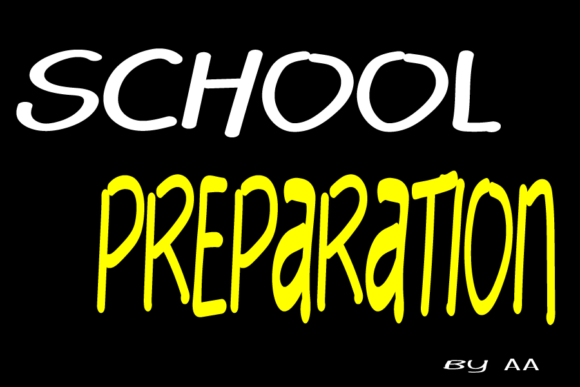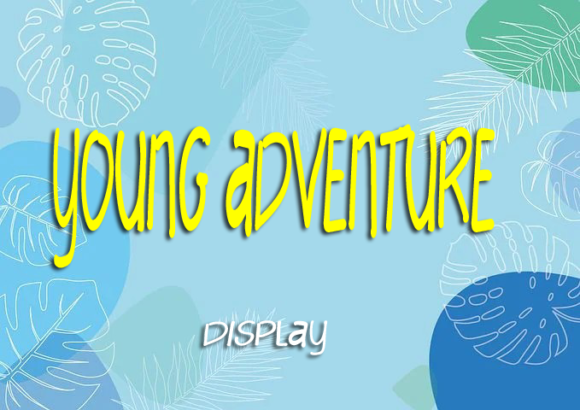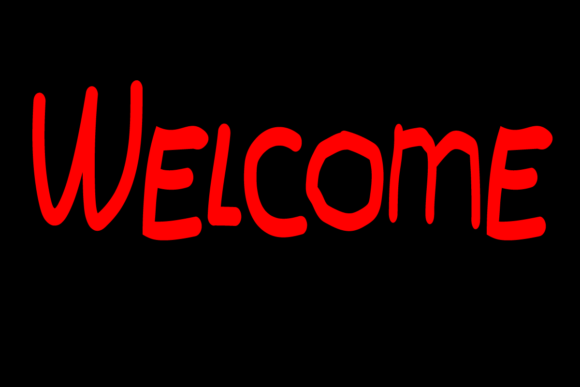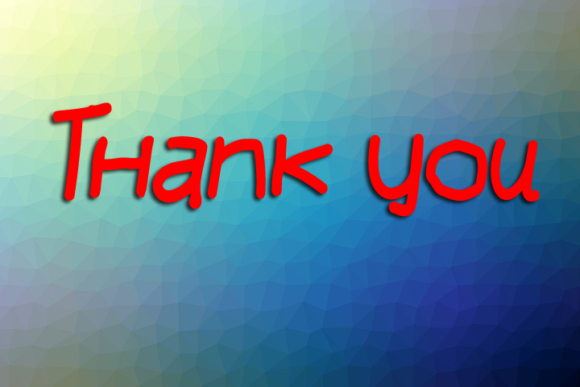
Introduction to Paradoks Font
Have you ever stared at a blank chalkboard, trying to come up with the perfect phrase to inspire your students or add a personal touch to your creative project? I know I have. Sometimes, it’s not about the words themselves, but about the way they look. That’s where the Paradoks Font comes in – a free download that will make your designs pop with its authentic, handwritten charm.
As a designer, you know how valuable a high-quality design resource can be. The Paradoks Font is one such gem, offering a unique and realistic feel that’s perfect for all your chalkboard quotes, teaching materials, or any other creative project that needs a personal touch. With its transparent background and simple, yet effective design, you can easily incorporate this font into your designs and elevate them to the next level.
Key Features of Paradoks Font
- Comes with a transparent background, making it easy to integrate into various design elements.
- Unique, modern design aesthetic that sets it apart from other fonts, perfect for making a statement in creative projects.
- Perfect for designers, artists, and creatives looking for a distinctive and high-quality font to elevate their designs.
Honest Review: Paradoks Font
- ✨ Unique and quirky design style that adds a touch of personality to any project
- ✨ Excellent for use in digital design, such as web and mobile applications
- ✨ Comes in a range of weights and styles to suit different design needs
- ✨ Supports a transparent background, making it easy to customize and use in different contexts
- ⚠️ Limited language support, which may be a concern for international projects
- ⚠️ May not be suitable for print design due to its digital-focused design
Overall, I’m impressed with the Paradoks Font’s unique design and flexibility. While it may not be perfect for every project, it’s a great addition to any designer’s toolkit, especially for those working on digital creative projects. If you’re looking for a high-quality, free design resource, the Paradoks Font is definitely worth checking out.
Tips for Getting the Most Out of Paradoks Font
Use Paradoks Font in your creative project to add a unique touch. Experiment with different font sizes, colors, and combinations to create a high-quality design resource. You can also use the font in conjunction with other design elements to create a transparent background effect.
Paradoks Font is a versatile design resource that can be used in various creative projects, such as logos, brochures, and social media graphics. You can also use the font in your free download designs to create a high-quality and professional-looking product.
Is the Paradoks Font suitable for high-resolution designs?
Yes, the Paradoks Font is designed to be high-quality and suitable for high-resolution designs. It’s optimized for use in various design software, including Adobe Creative Cloud, and can be scaled up to 300 DPI or higher without losing its quality. This makes it perfect for printing, web design, or any other application that requires high